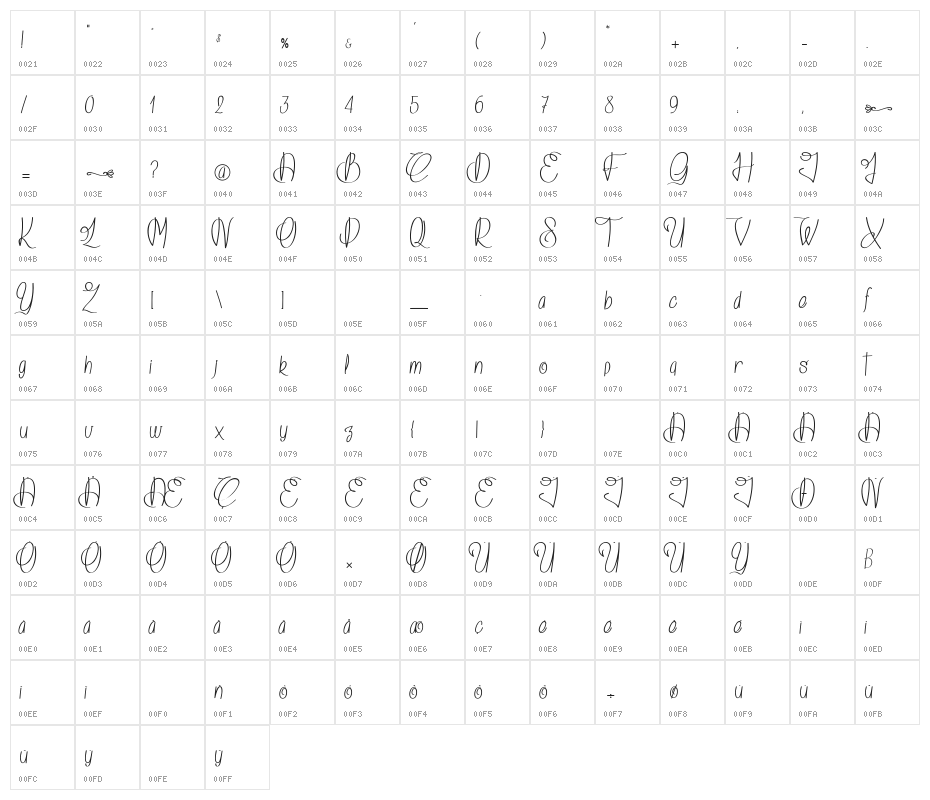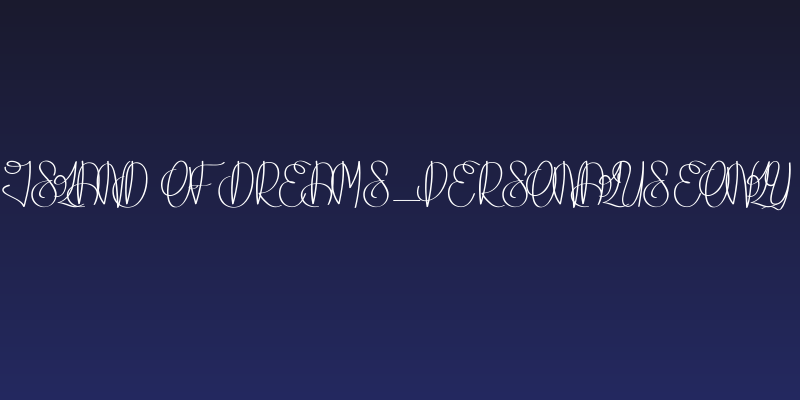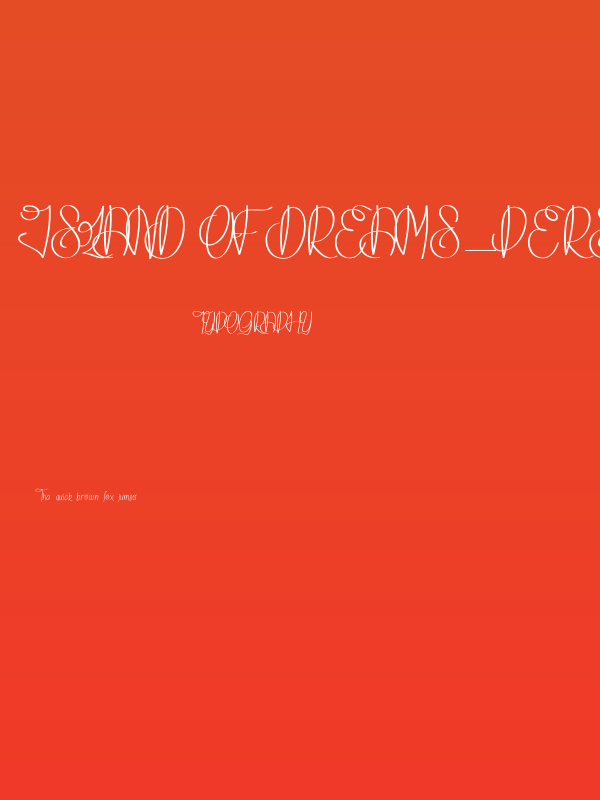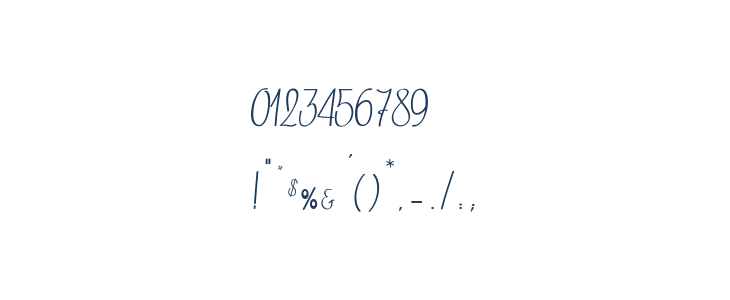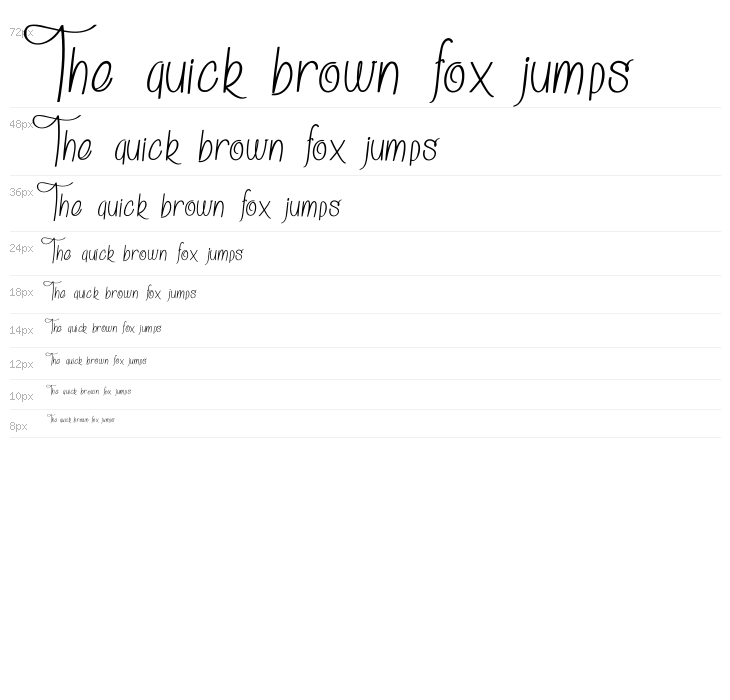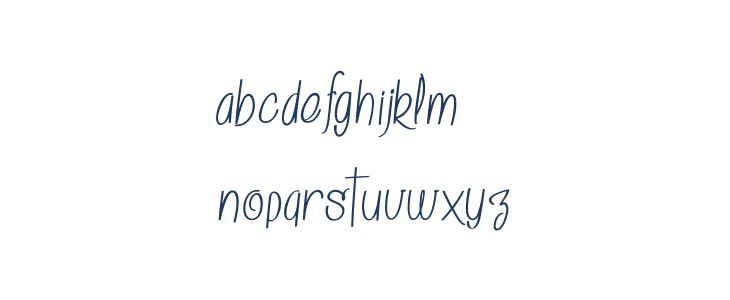
Island of Dreams_PersonalUseOnly Font
Island of Dreams_PersonalUseOnly Description
This font features an elegant, flowing script style with a whimsical touch. The uppercase letters are characterized by intricate loops and swirls, giving them a decorative and artistic appearance. The lowercase letters maintain a more straightforward yet still stylish form, complementing the uppercase with a sense of balance. The numerals are consistent with the overall design, featuring slight curves and a playful aesthetic. Special characters are thoughtfully integrated, maintaining the font's cohesive look. This font is ideal for projects that require a touch of elegance and creativity.
| Use Case | Logos, Invitations, Artistic designs |
| Proposed Projects | Ideal for wedding invitations, greeting cards, branding, and artistic projects. |